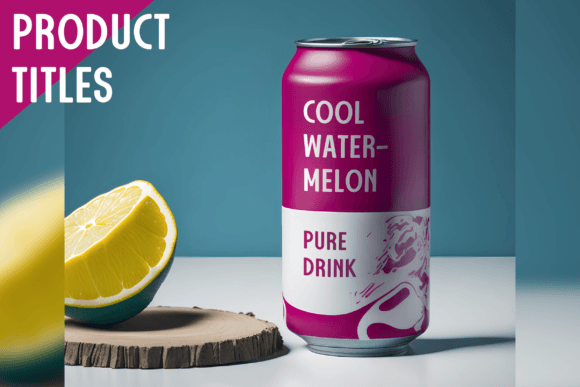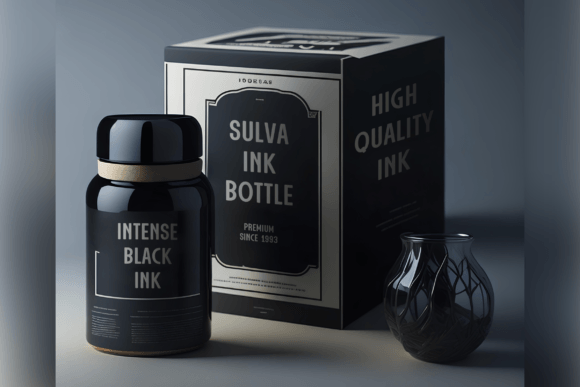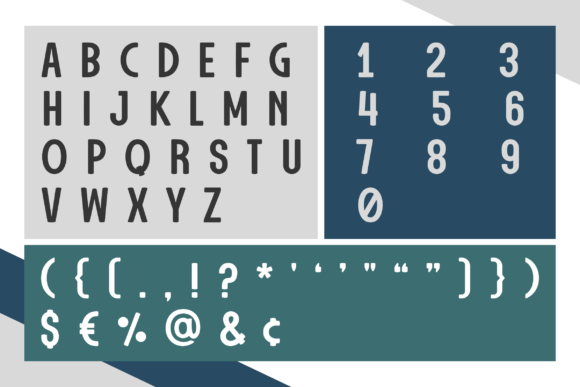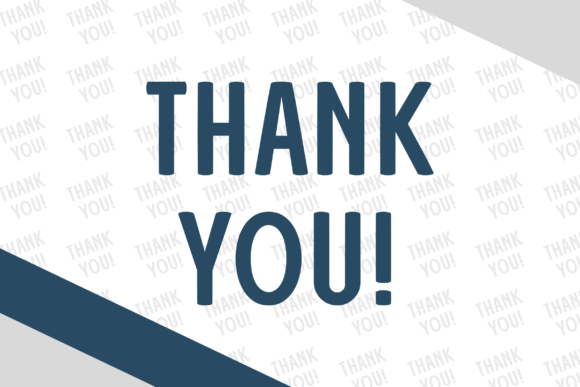
Introduction to Serival Sans Font
As a designer, have you ever been stuck on a creative project, struggling to find the perfect font to convey your message? You’ve spent hours scouring design resources, searching for that elusive combination of style and legibility. Then, one day, you stumble upon a font that changes everything. For us, that font is the Serival Sans Font.
This all-caps font is more than just a pretty face – it’s a game-changer. With its balanced letterforms, smooth curves, and subtle details, Serival Sans Font strikes the perfect balance between classic and contemporary. Whether you’re working on a logo, editorial layout, or website, this font ensures your message is conveyed with clarity and sophistication.
Key Features of Serival Sans Font
- High-quality sans-serif font ideal for creative projects and design resources, offering a modern and clean aesthetic.
- Features a transparent background, allowing for effortless layering and customization in design applications.
- Designed with a high level of detail, resulting in crisp and clear typography at resolutions up to 300 DPI.
- Comes in multiple font sizes, ranging from 12 to 72 points, making it suitable for a variety of design applications.
- Perfect for use in digital design, print media, and web development, thanks to its versatility and high-quality design.
Honest Review: Serival Sans Font
I recently had the chance to work with the Serival Sans Font, and I must say it’s been a game-changer for my creative projects. The clean and modern design of this font has really helped elevate the look and feel of my work.
One of the things that I love about Serival Sans Font is its versatility. It’s perfect for a wide range of design applications, from logo design to digital interfaces. The high quality of the font makes it a great addition to any design resource collection.
- ✨ Clean and modern design that’s perfect for creative projects
- ✨ High quality that makes it a great addition to any design resource collection
- ✨ Transparent background option available for added flexibility
- ⚠️ Limited character set, which may not be ideal for complex design applications
- ⚠️ May not be suitable for use in print materials due to limited font sizes and styles
Overall, I’m really impressed with the Serival Sans Font. It’s a great addition to any design resource collection, and I would highly recommend it to anyone looking for a clean and modern font for their creative projects.
Tips for Getting the Most Out of Serival Sans Font
The Serival Sans Font is ideal for use in brochures, flyers, and business cards. Its clean and modern design makes it perfect for showcasing your brand identity. You can also use it in presentations, reports, and documents to add a touch of professionalism.